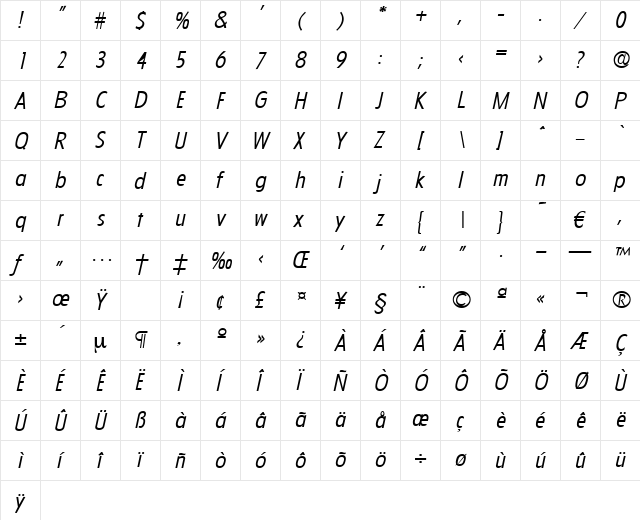
Florida-LightIta Regular Font Preview
Florida-LightIta Regular
Florida-LightIta Regular Font Details
Design Context for Florida-LightIta Typeface
Florida-LightIta takes a measured approach to typography — its balanced proportions and neutral character make it a reliable workhorse for both digital and print work. Its slender proportions lend an understated elegance to any composition.